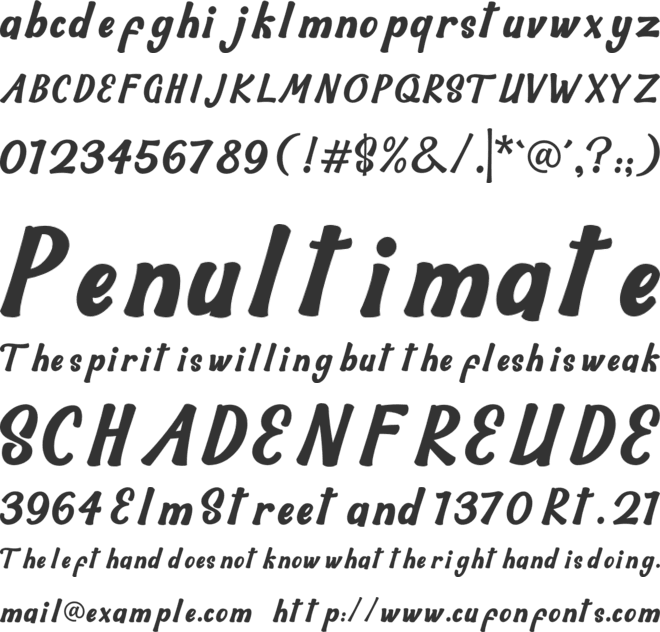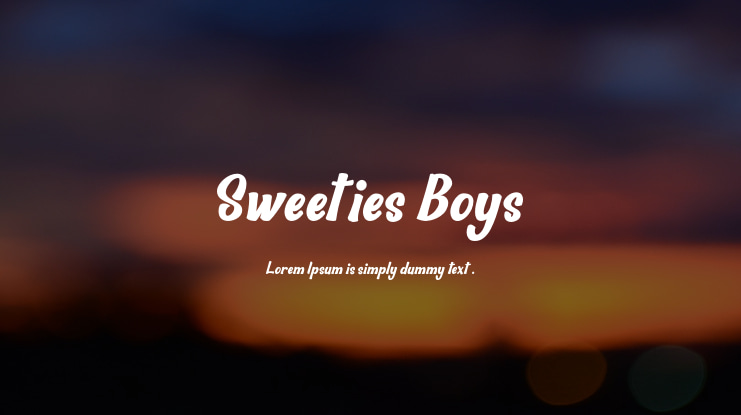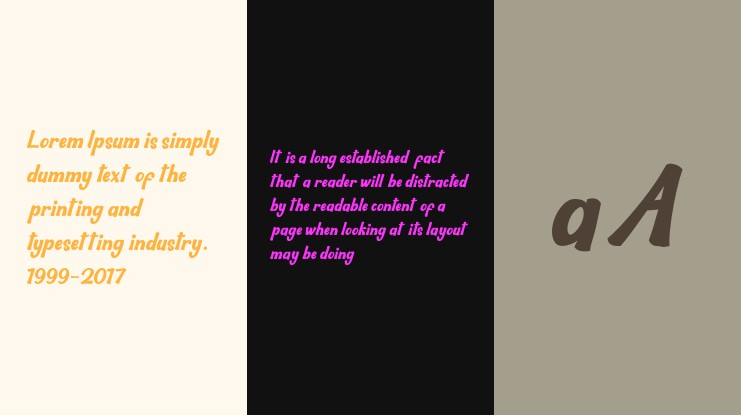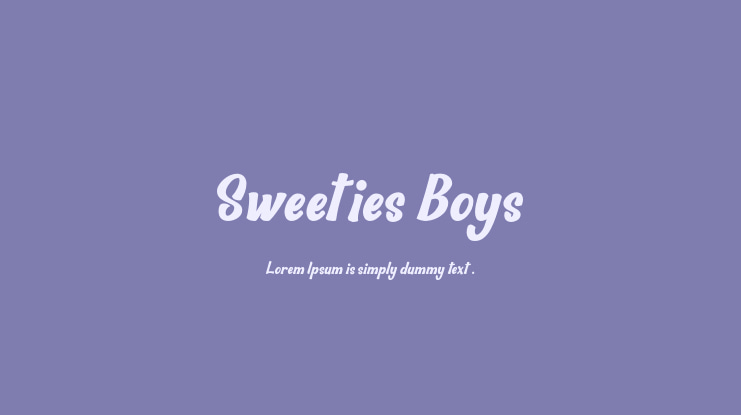
Sweeties Boys Font
Introducing our new release, Sweeties Boys Lovely Display Typefont. This typeset is perfect for brand logo, invitations, greeting card, or even any kind of project. With multilingual feature and style variations, this typeface would further enhance the aestethical aspect of your work.Visit our website :https://displaytypefont.com/product/sweeties-boys/